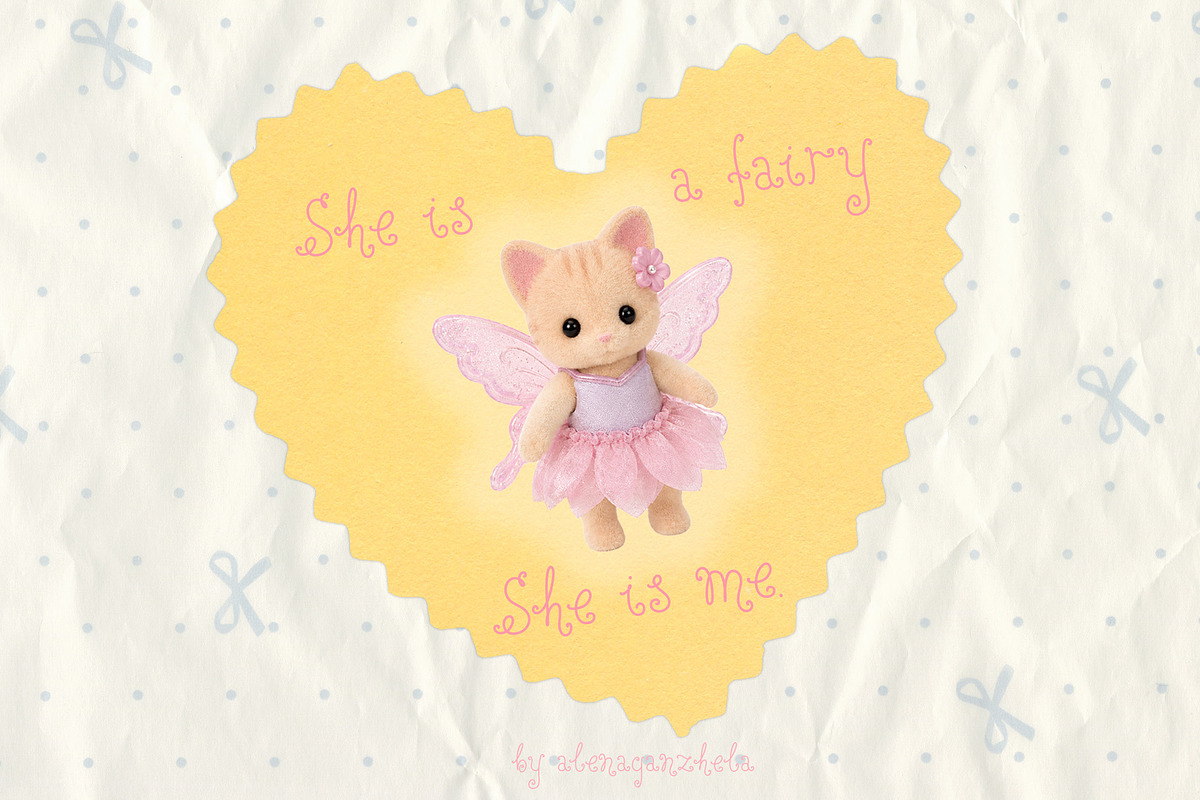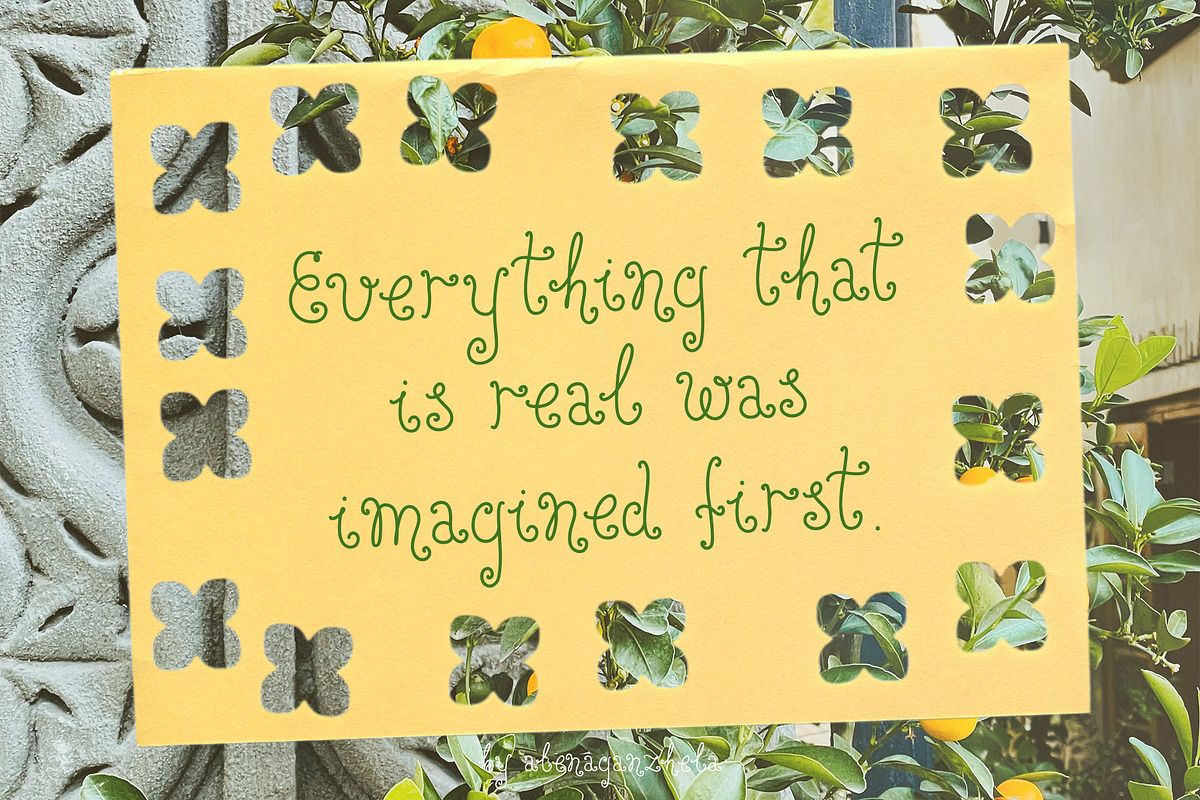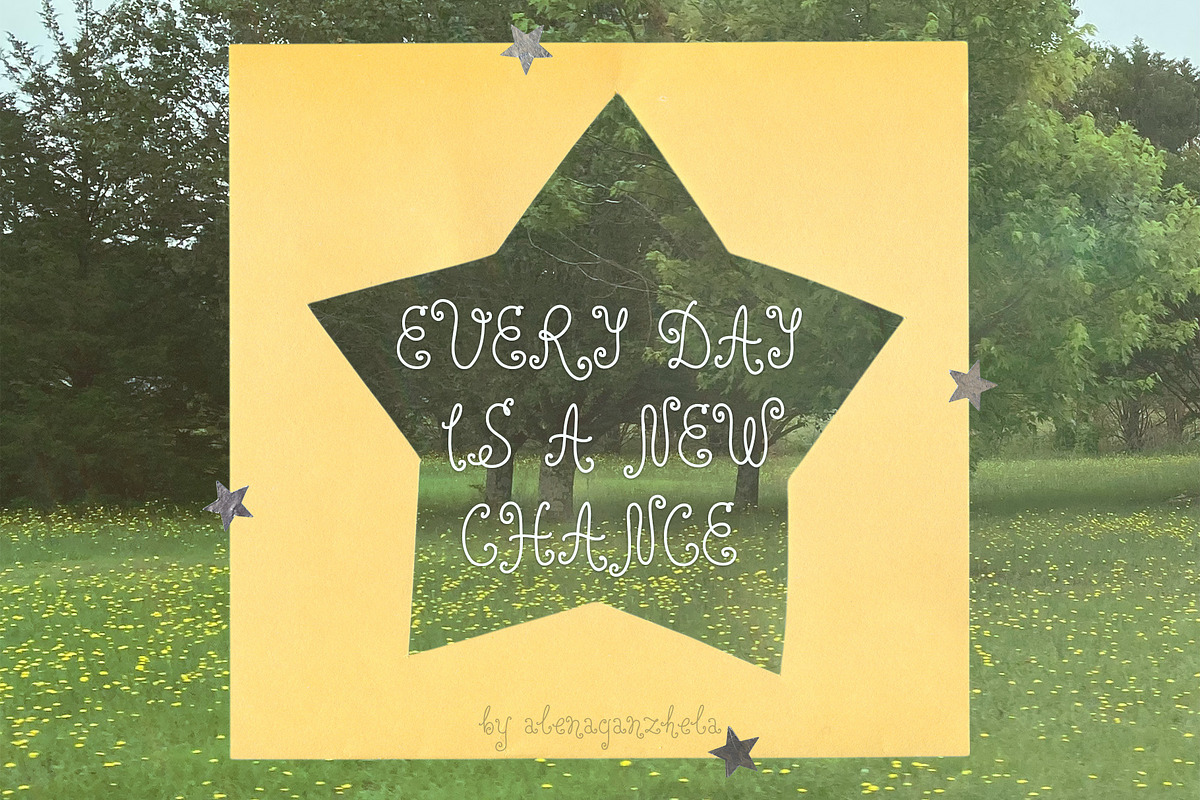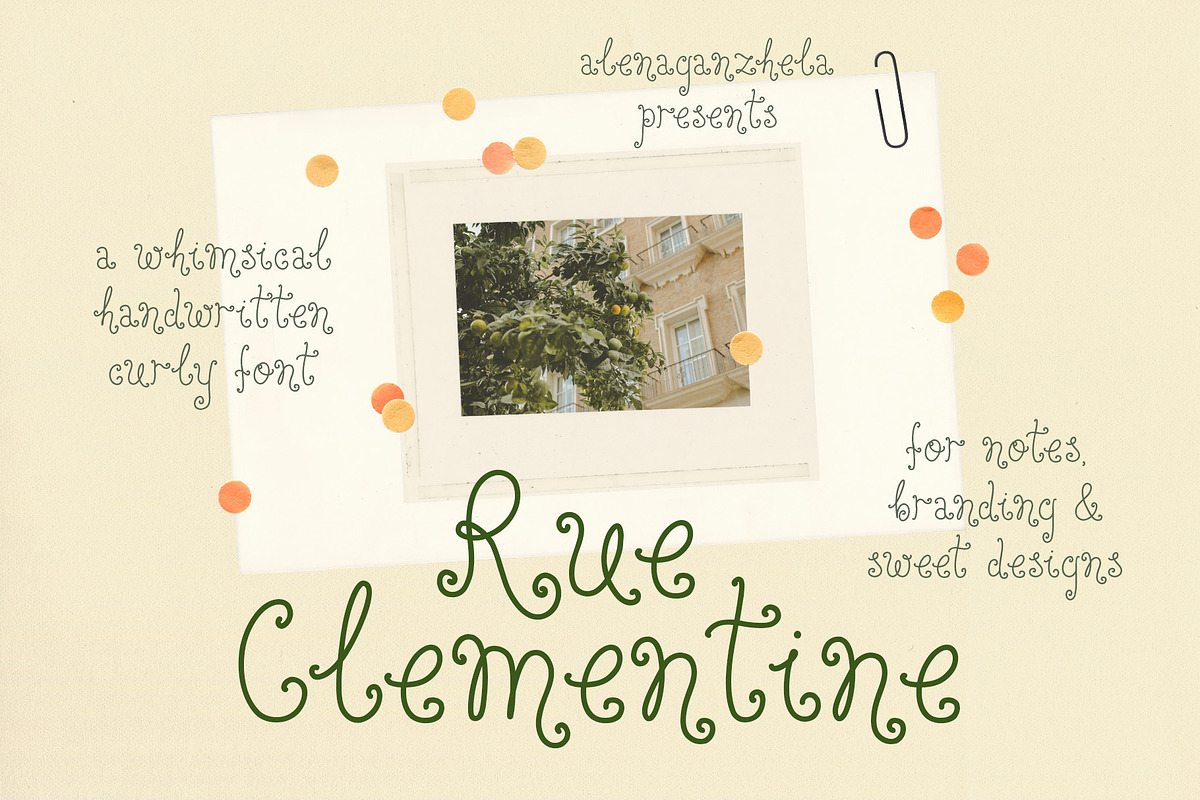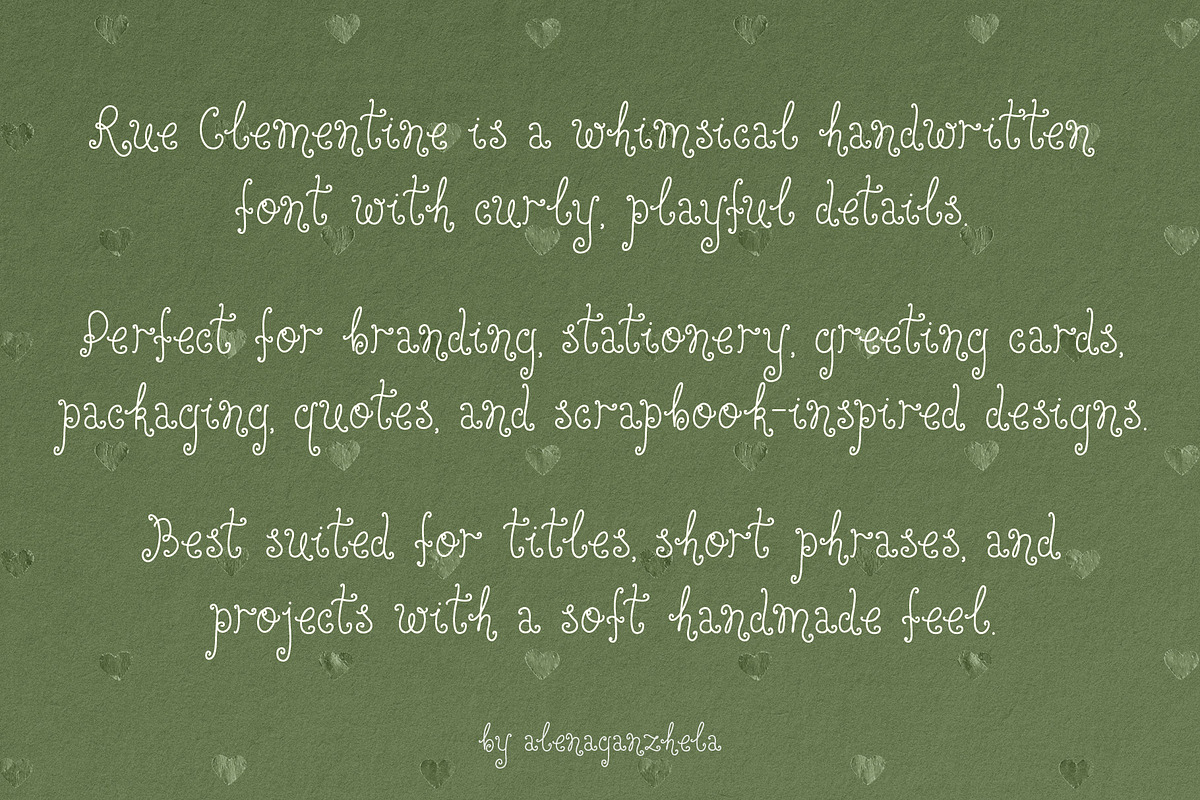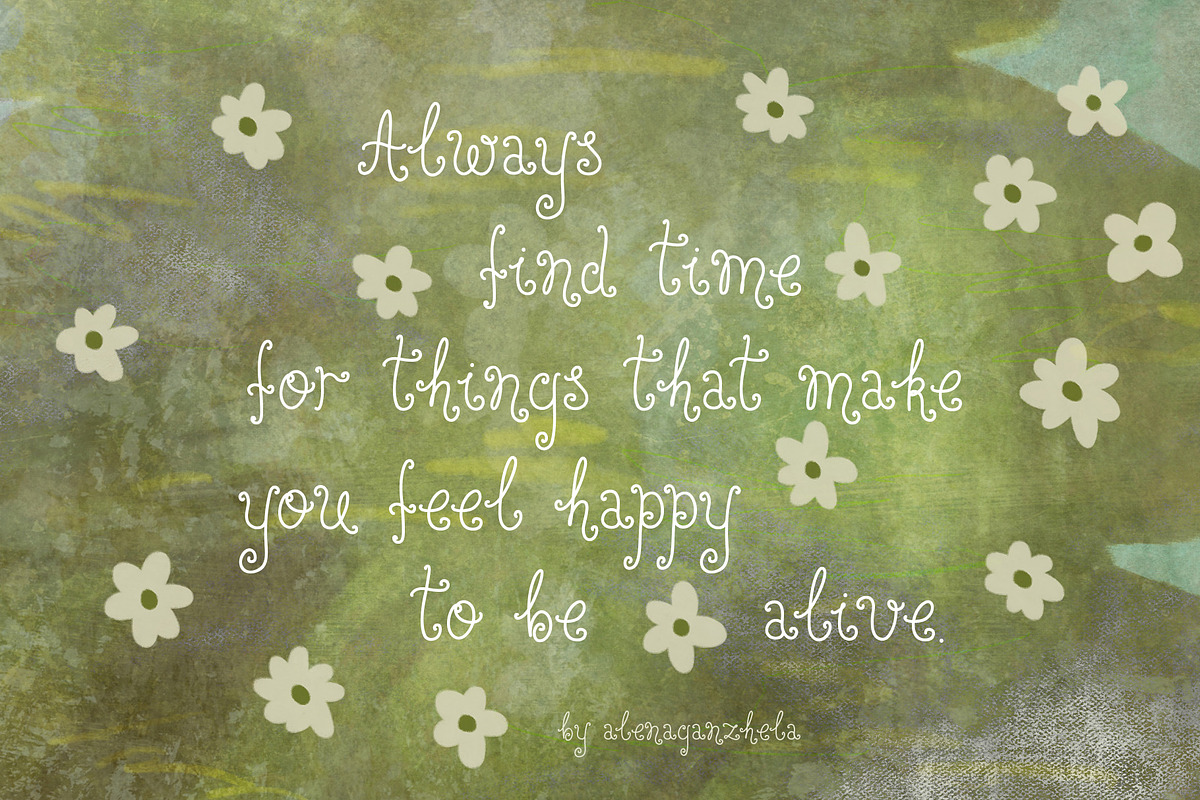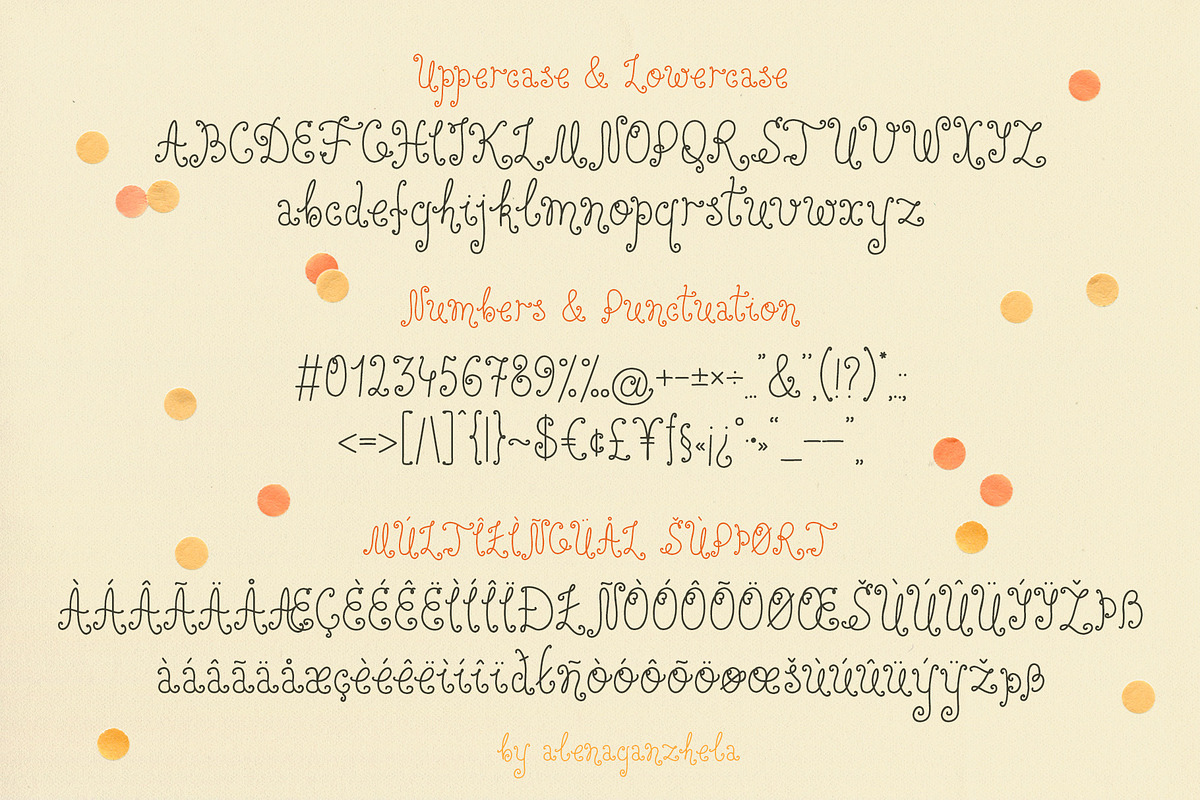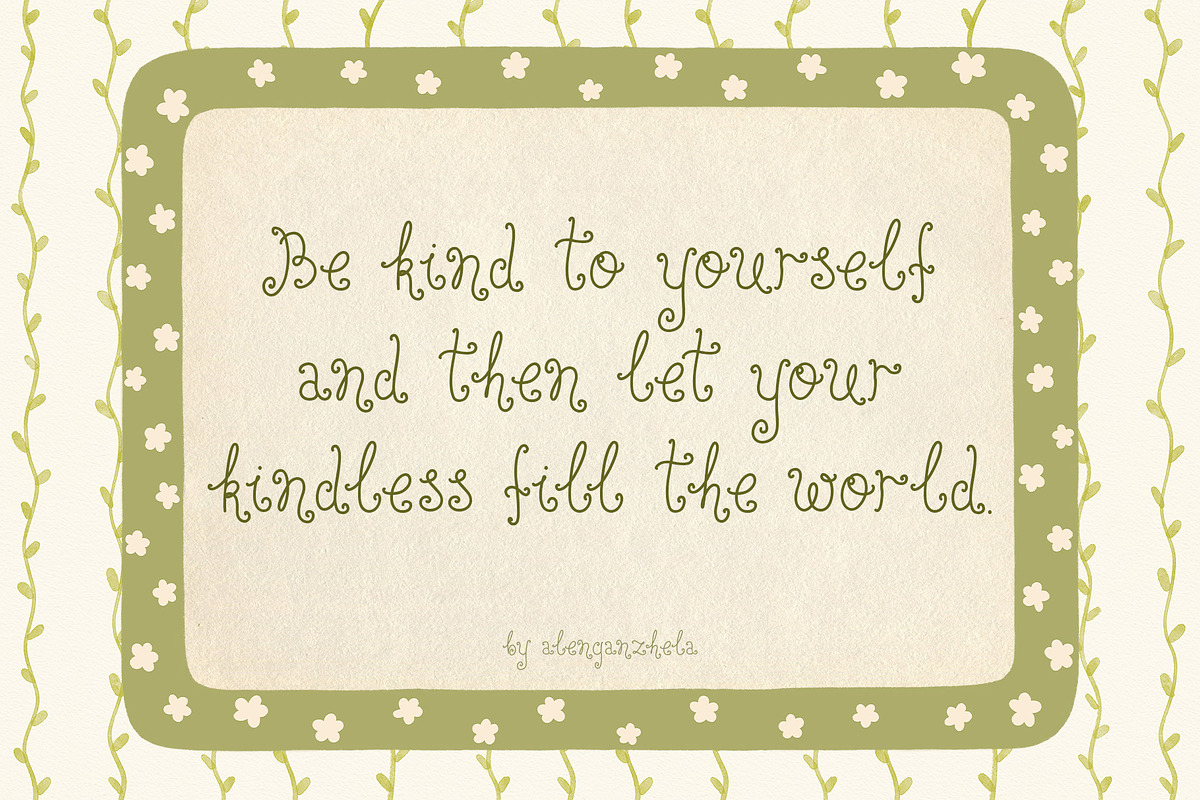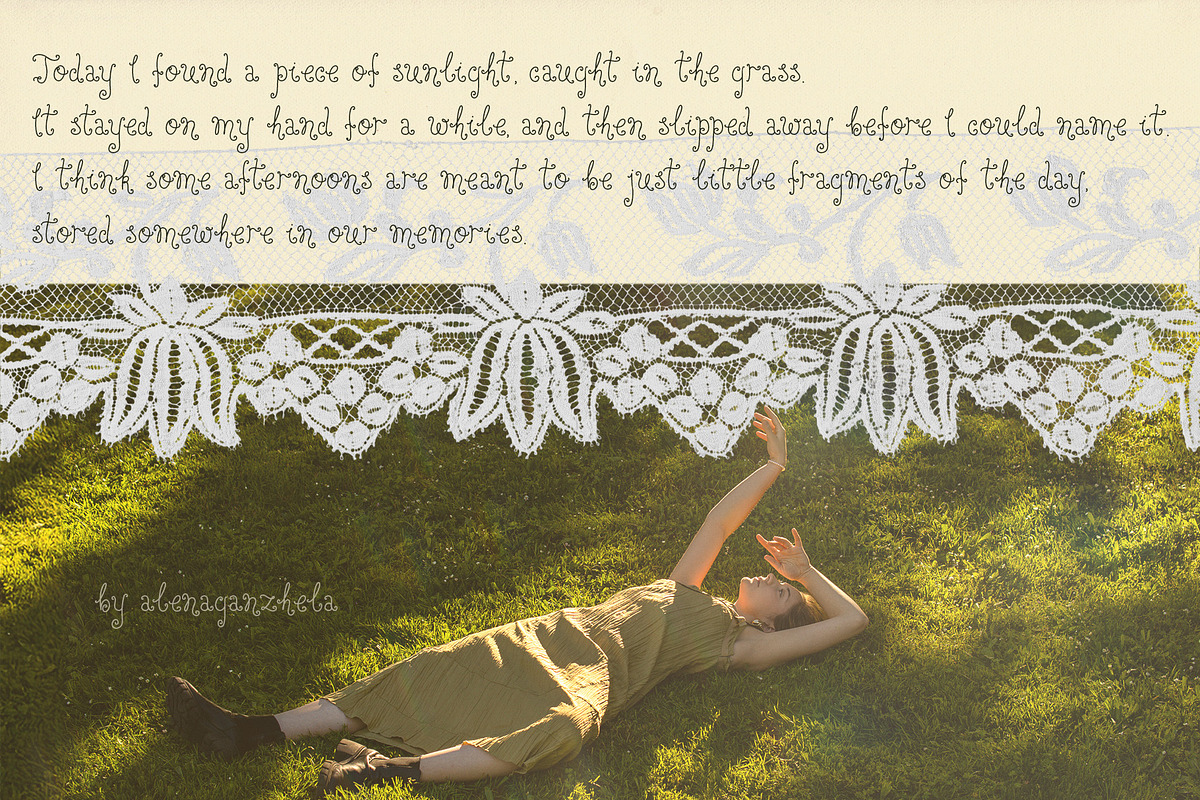
Rue Clementine - curly font
Rue Clementine is a curly handwritten font with a soft whimsical charm. Its playful letterforms, delicate loops, and handmade feel make it perfect for designs that need a sweet, personal, and slightly nostalgic touch.
Rue Clementine works best for titles, short phrases, and decorative text where you want the typography to feel warm, playful, and full of character. Use it for branding, logos, greeting cards, stationery, packaging, quotes, social media graphics, scrapbook-style layouts, invitations, labels, and lovely little notes.